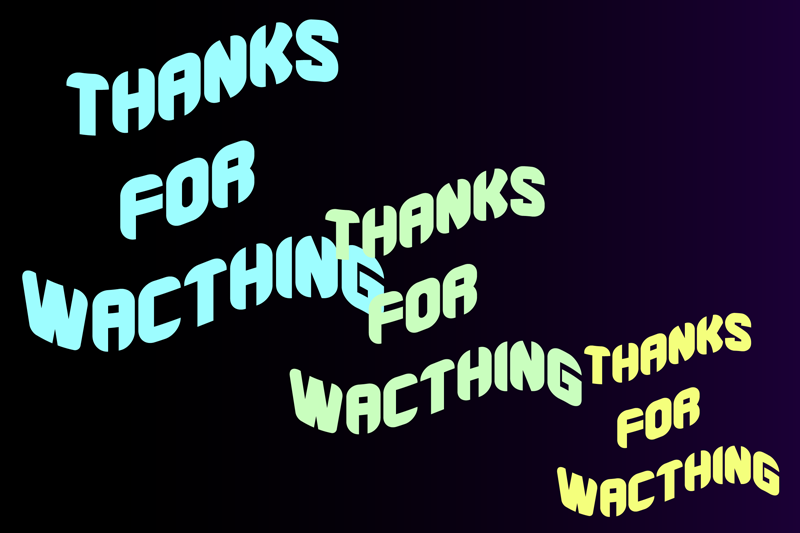
Font name: | Burnods |
Author: | Ryan Figih |
Note by Ryan Figih | |
font burnods font that displays the bold style of each letter you need may match this font that can make your design more attractive. From designs such as invitations, posters, magazines, banners, quotes, covers or logos... |